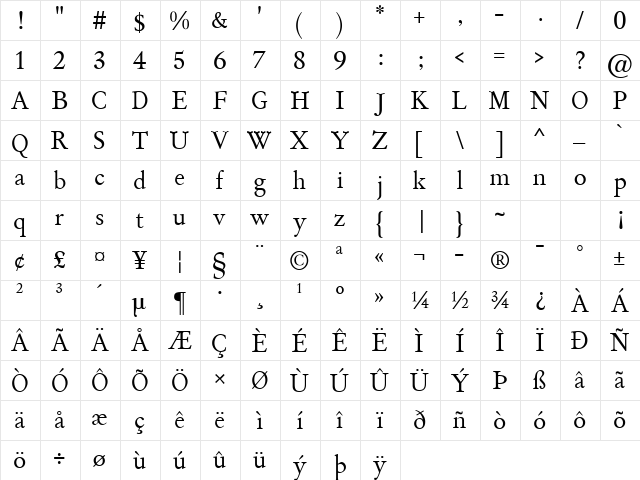
ALPHA-Demo Regular
| Designer | JUAN JOSɠMARCOS GARĆ |
Design Context for ALPHA-Demo Typeface
ALPHA-Demo is a composed and adaptable typeface that performs quietly and consistently across a wide range of design contexts.